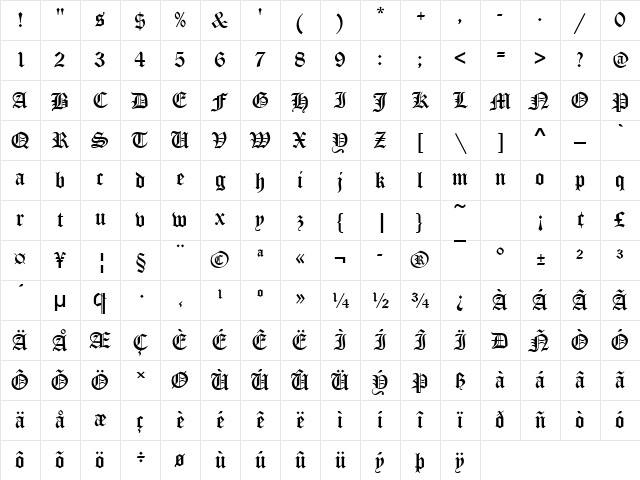
Complete Old English Becker Regular glyph index. Displaying only characters natively supported by Old English Becker Regular font.
Old English Becker is a composed and adaptable typeface that performs quietly and consistently across a wide range of design contexts.